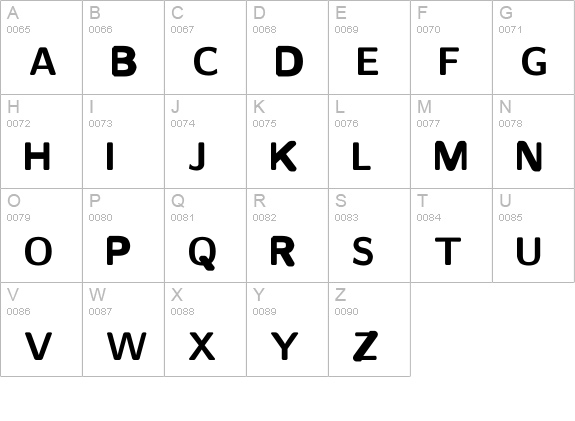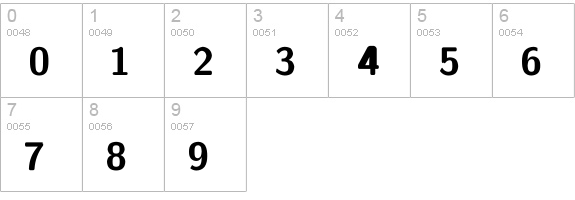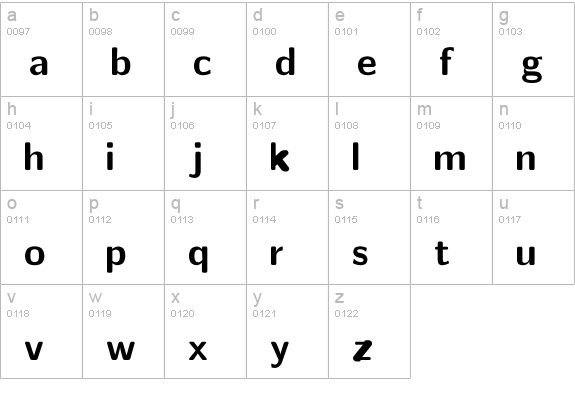
CM_SansSerif BoldExt Font Details
Introducing CM_SansSerif BoldExt font, a bold and modern typeface designed to make a statement. Its clean lines and strong presence make it perfect for headlines, titles, and branding projects that require a bold touch. The CM_SansSerif BoldExt font exudes confidence and style, making it a versatile choice for various design applications. What's even better is that this amazing font is available for free download at FontsMarket.com. You can easily access and use this font in your projects without any cost, making it a valuable addition to your font library. Don't miss out on the opportunity to enhance your designs with the striking CM_SansSerif BoldExt font - download it now and let your creativity shine!